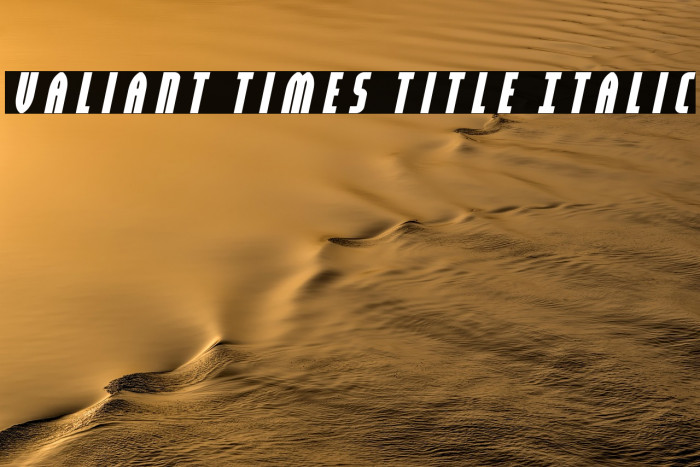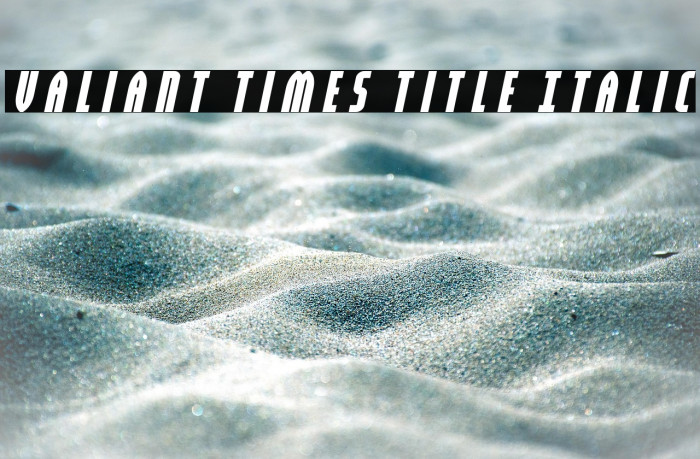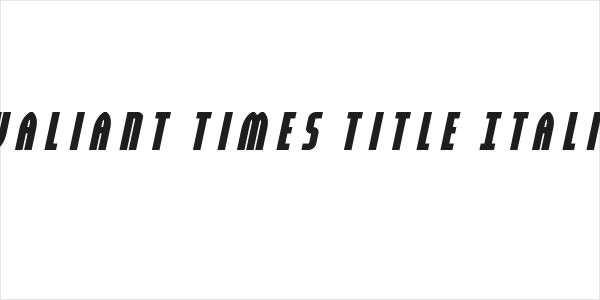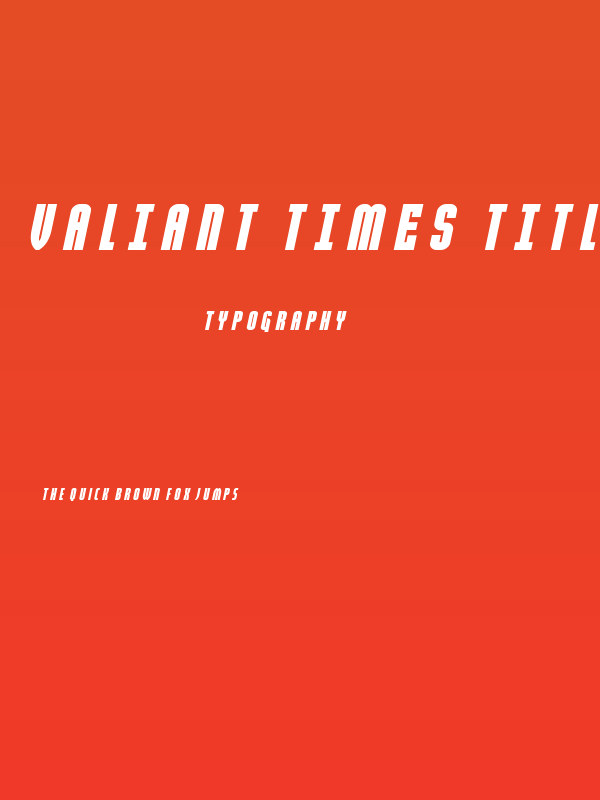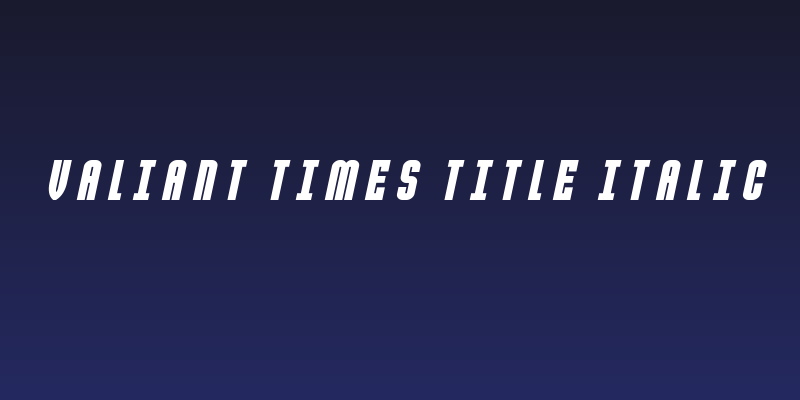
Valiant Times Title Italic Font
Valiant Times Title Italic Description
This font features a bold, italicized style with a strong presence. The characters are slightly condensed, giving it a compact appearance while maintaining legibility. The strokes are thick and consistent, providing a uniform look across all letters and numbers. The italic slant adds a dynamic and energetic feel, making it suitable for attention-grabbing headlines or titles. The uppercase and lowercase letters are well-proportioned, and the numerals are clear and distinct. Special characters are included, enhancing its versatility for various design needs.
Proposed ProjectsIdeal for magazine titles, posters, branding materials, and advertising campaigns.